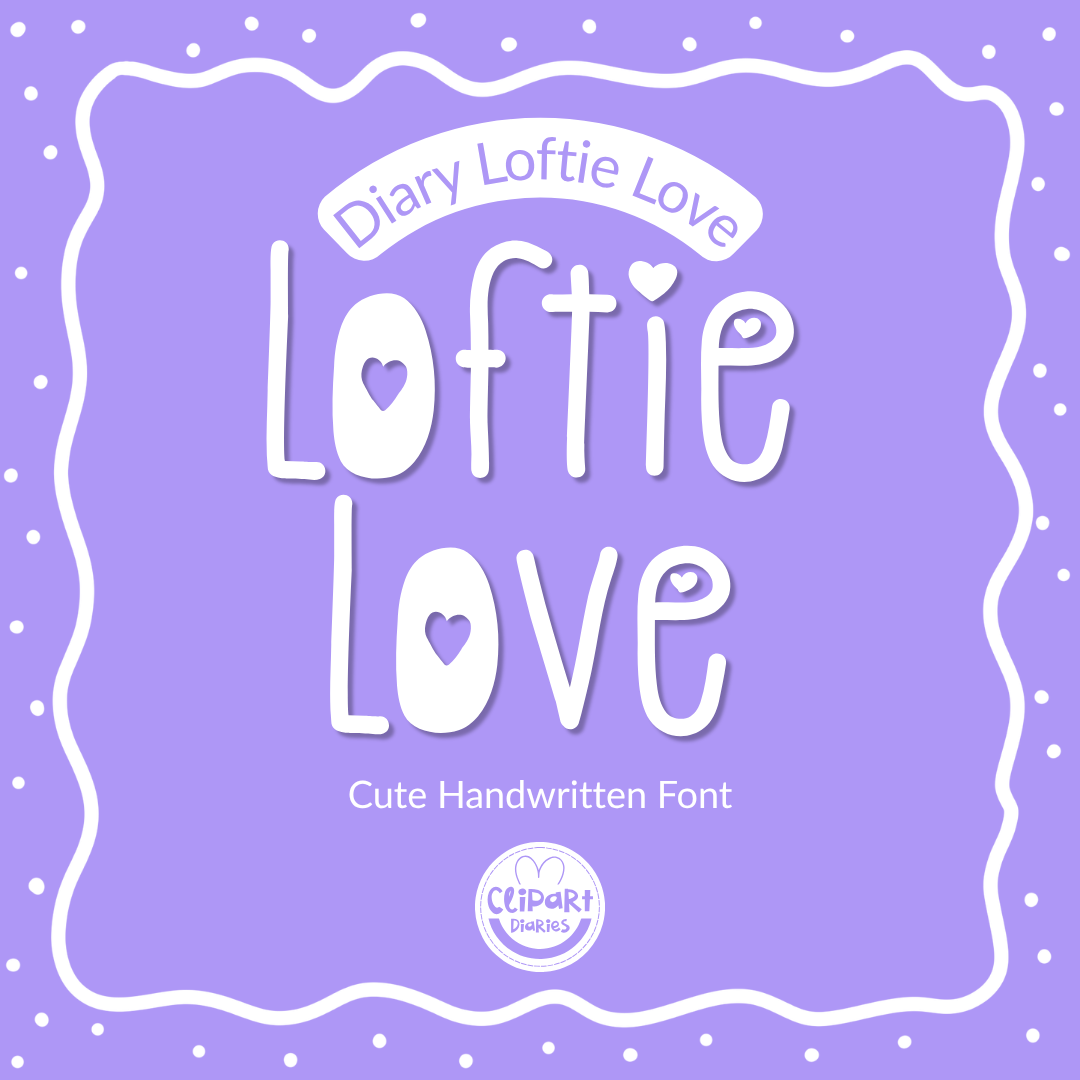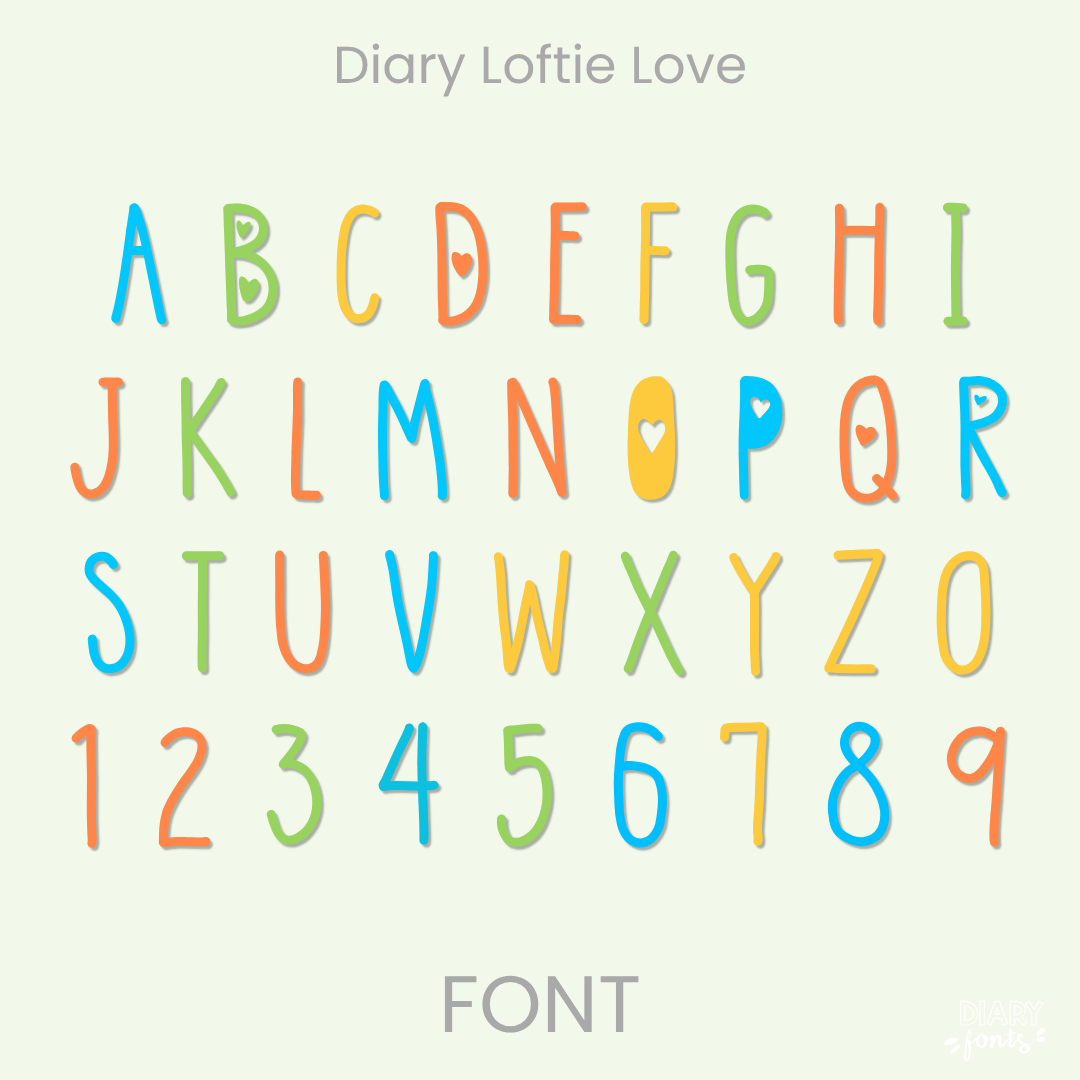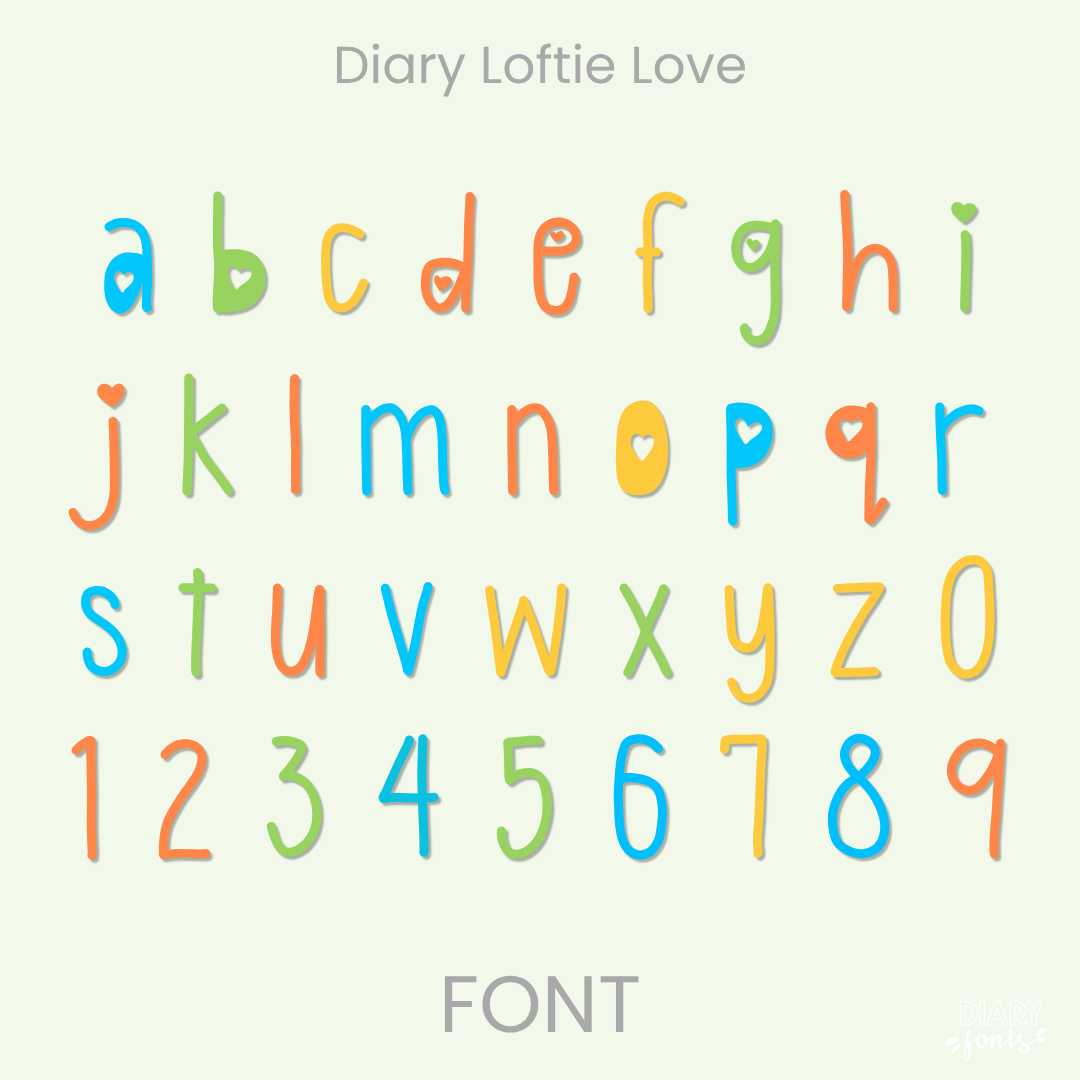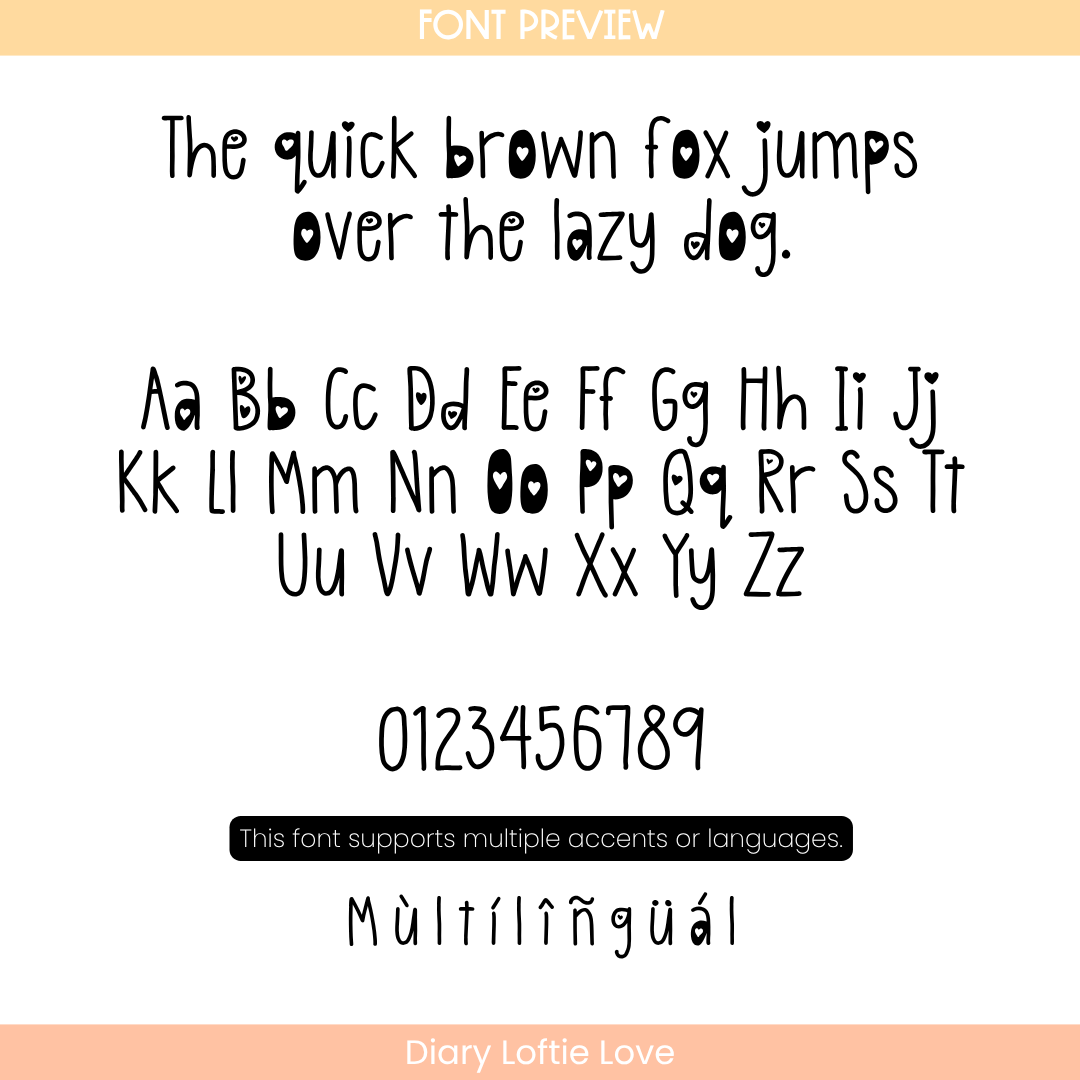
Add a charming, personal touch to your digital and physical projects with Diary Loftie Love! This cute handwritten font is perfectly crafted for busy teachers, creative planners, and crafters looking for an aesthetic, effortless hand-drawn look.
Whether you are creating classroom worksheets, designing bullet journals, customizing Cricut projects, or taking digital notes on your iPad, this versatile typeface is designed to make your text pop with personality. Plus, it features multilingual support with accents to accommodate multiple languages seamlessly!